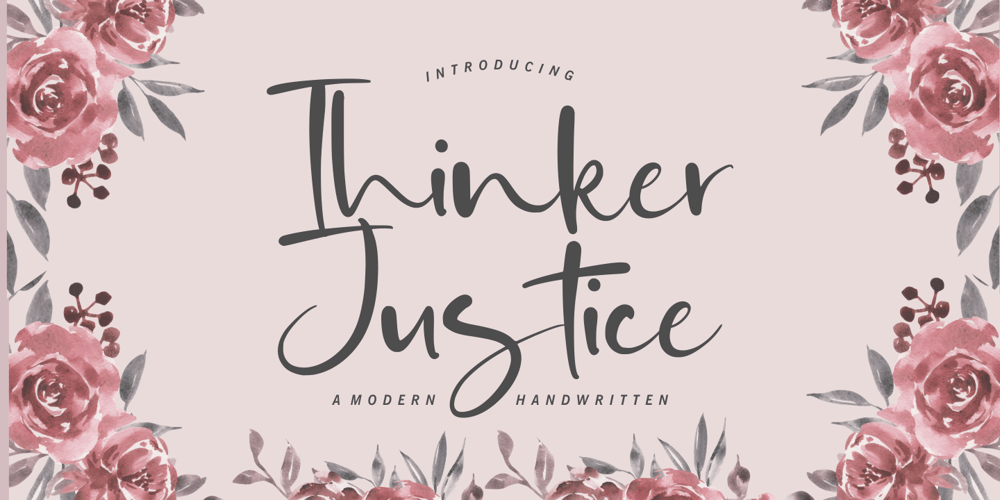
Thinker Justice Font Family was designed by Restu Angga and published by Balpirick. Thinker Justice contains 1 styles and family package options. Thinker Justice is a Modern Handwritten Font.Thinker Justice is a trendy and modern handwritten font. Simple and natural, this font will become your top choice for formal and informal designs in no time!Thinker Justice also multilingual support.Enjoy the font, feel free to comment or feedback, send me PM or email.